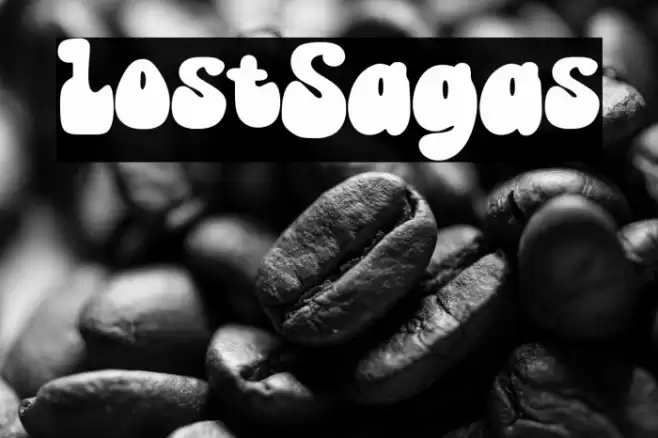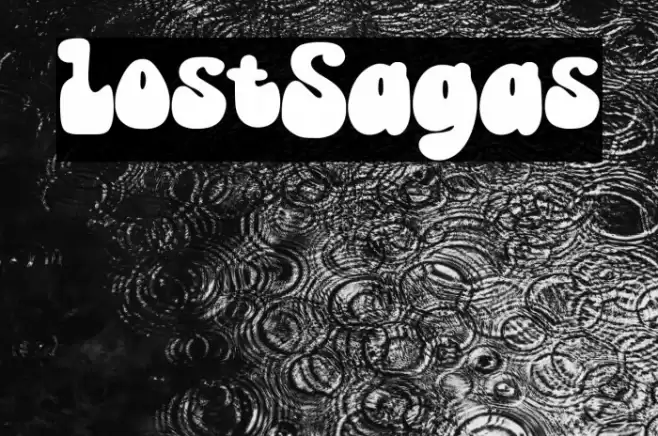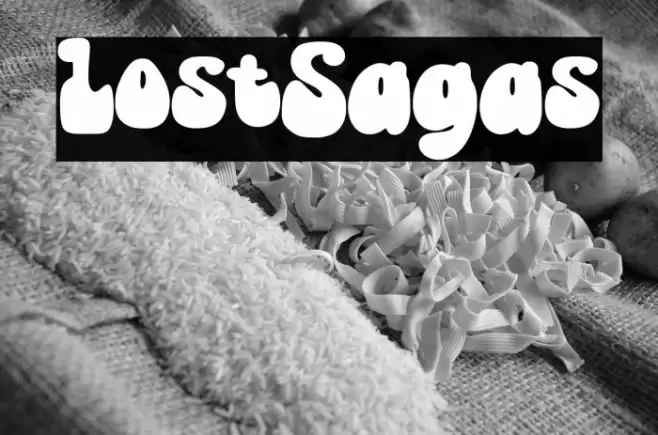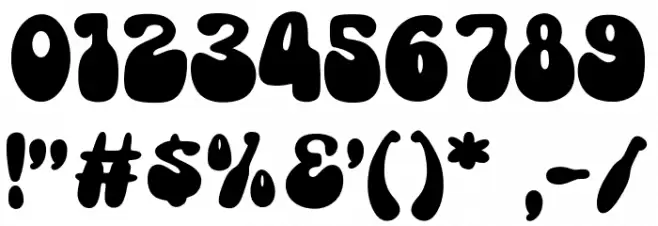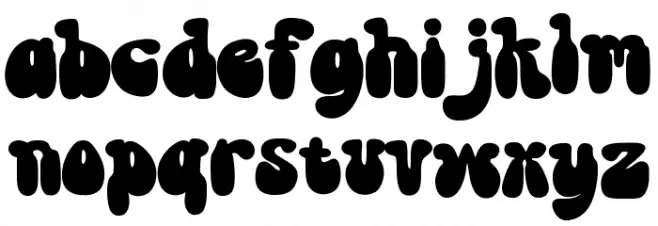
LostSagas Font
LostSagas Description
This font features a bold and playful design with rounded, bulbous letterforms that convey a sense of fun and whimsy. The characters are thick and have a soft, inflated appearance, making them stand out with a strong visual presence. The uppercase and lowercase letters maintain a consistent style, with rounded edges and a uniform thickness throughout. The numbers and special characters follow the same design principles, ensuring a cohesive look across all elements. This font's unique style is eye-catching and memorable, making it suitable for creative and informal applications.
A bold, playful font with rounded, bulbous letterforms and a whimsical style from Uncategorized fonts.
- Proposed Projects: Ideal for children's books, playful branding, party invitations, and creative posters.
- Overall Style: Playful, Whimsical